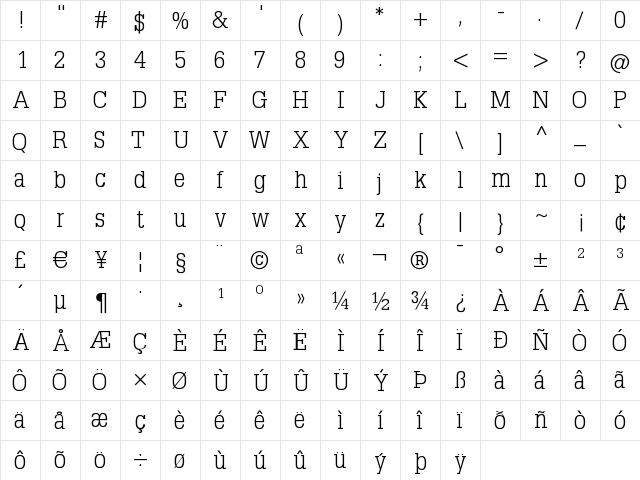
TypoSlabserif-Light Regular
Design Context for TypoSlabserif-Light Typeface
TypoSlabserif-Light features prominent, blocky serifs that give it a confident, grounded presence — equally at home in editorial settings and bold branding work. The delicate stroke weight brings airiness and refinement to layouts.
Suited to magazines, political campaign materials, bold packaging, and any setting where authority matters.